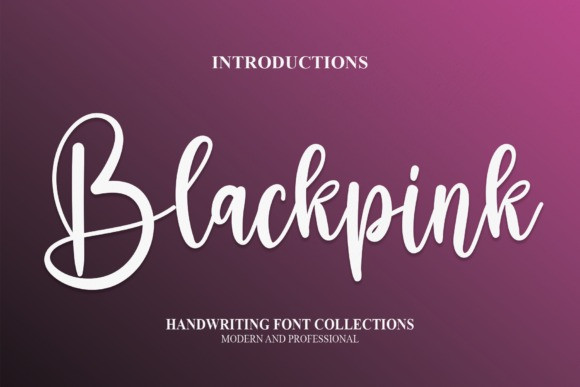
Blackpink Font
Blackpink Font is a sweet and cursive handwritten font. This gentle font will look gorgeous on a variety of design ideas. It will add a joyful and romantic touch to each of your projects!